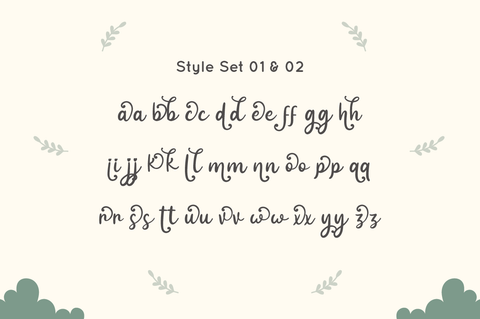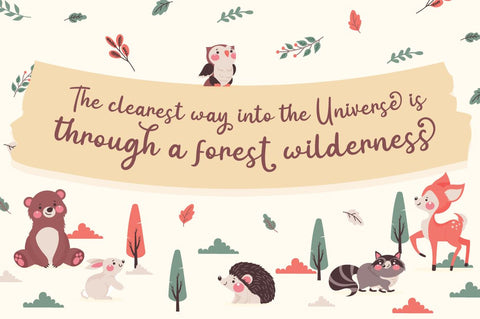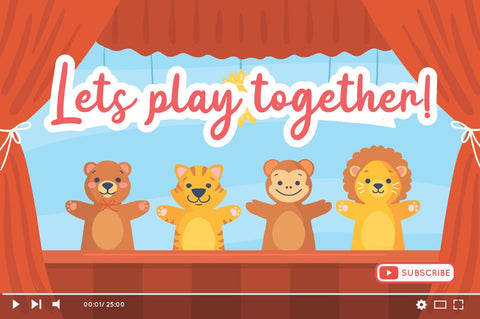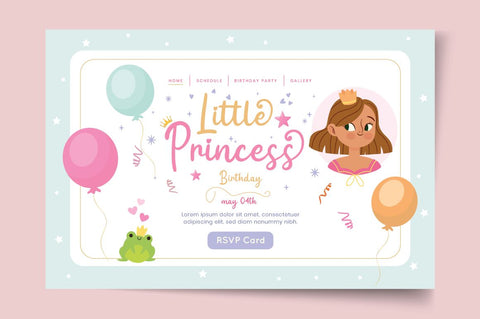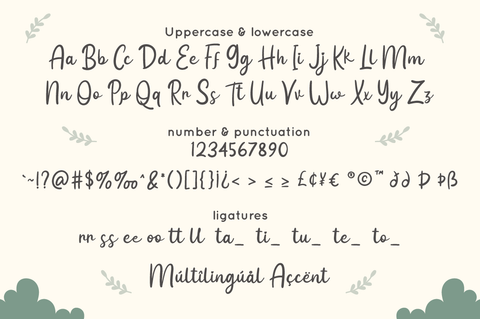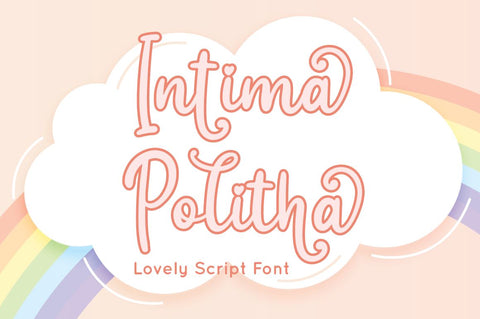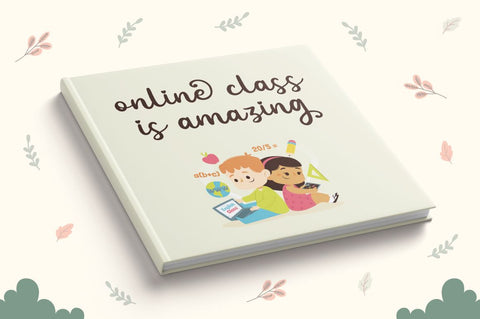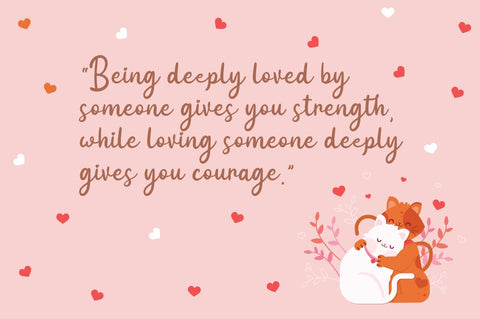
Intima Politha - Script Font
Intima Politha is a lovely script font with stylistic set and alternates. Fall in love with its incredibly versatile style and use it to create spectacular designs!
Intima Politha is perfect for branding, logo, invitation, quotes, apparel design, product packaging, merchandise,
game titles, cute style design, Book/Cover Title and more.
- Ending Swash